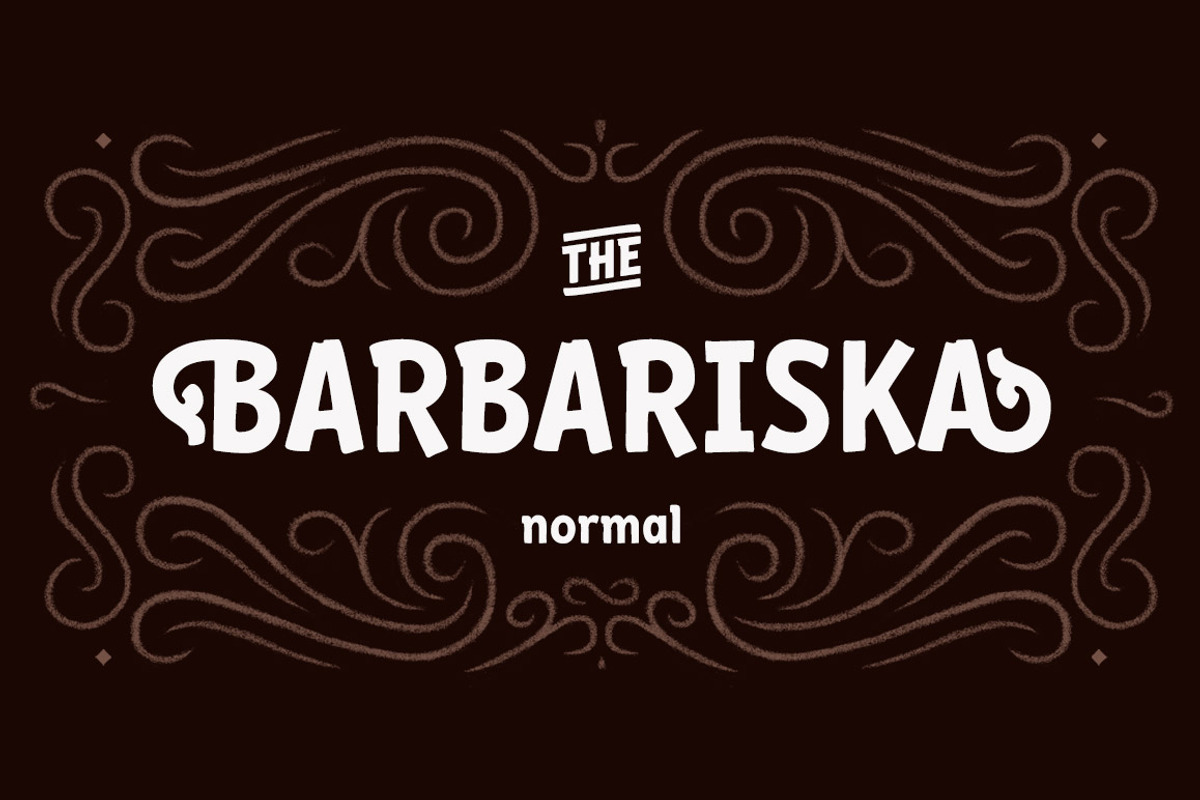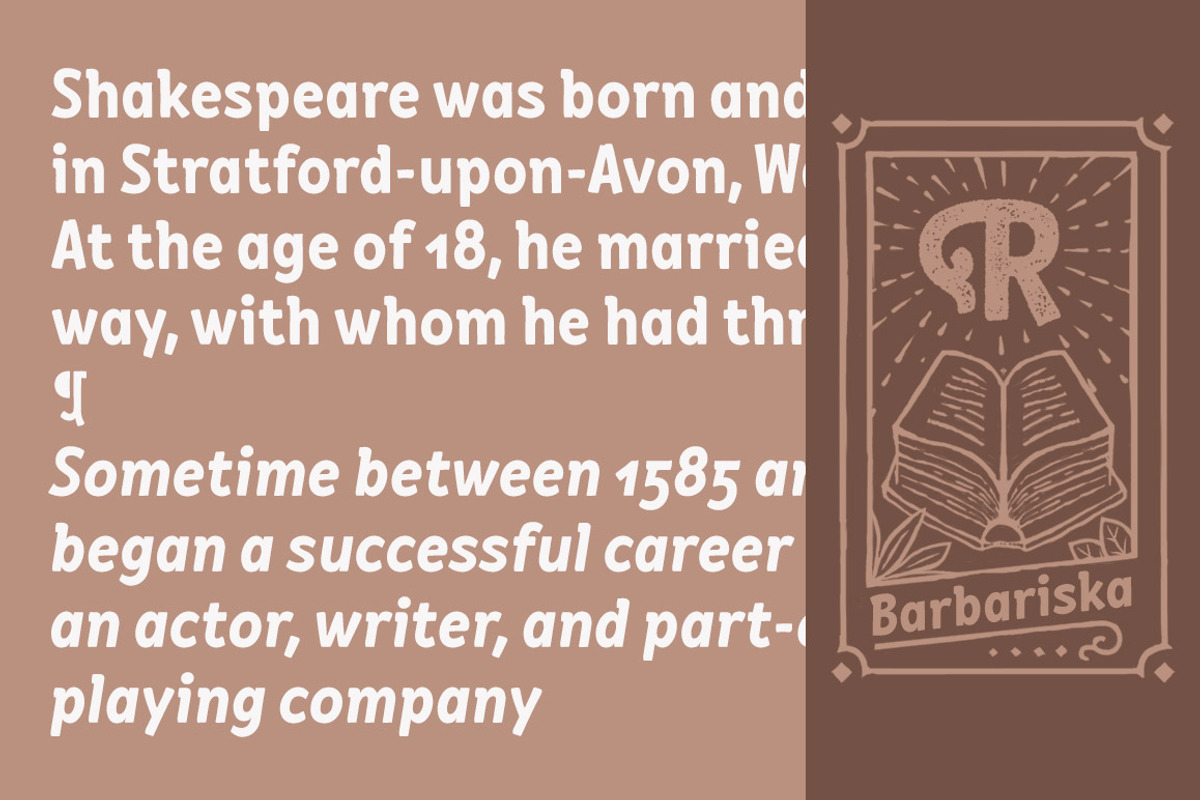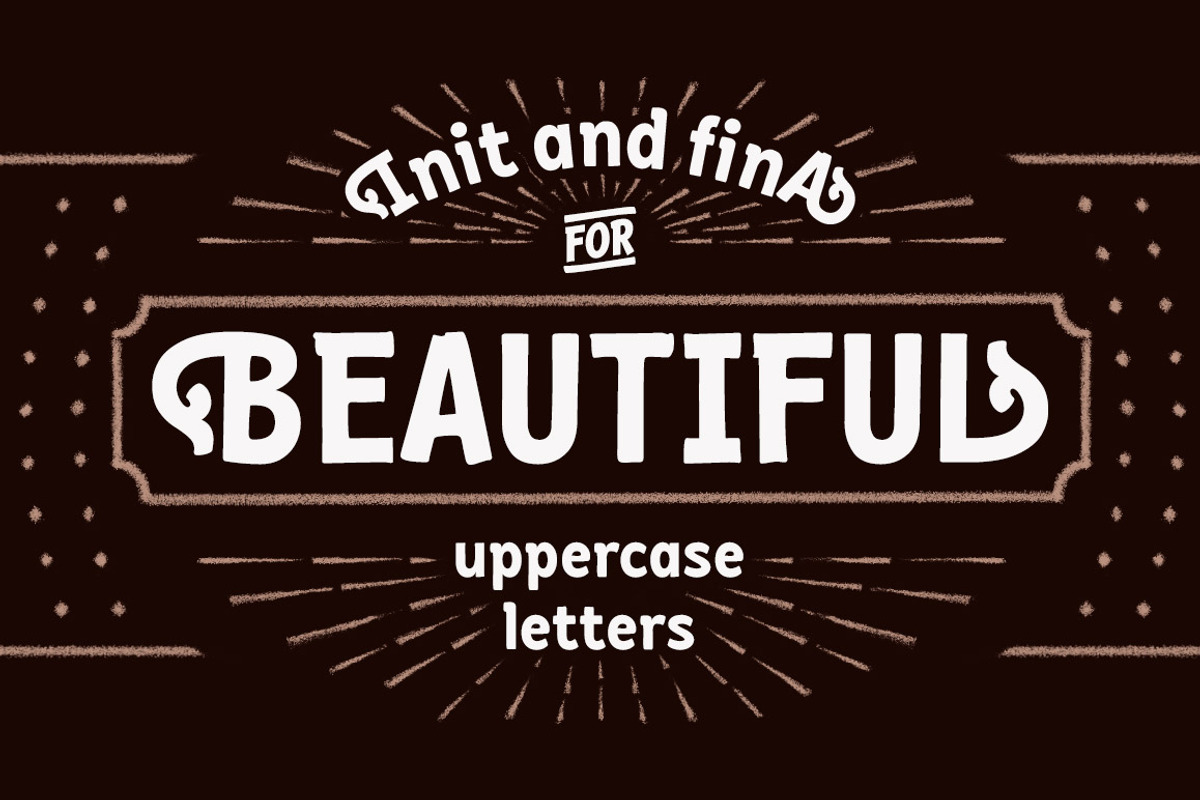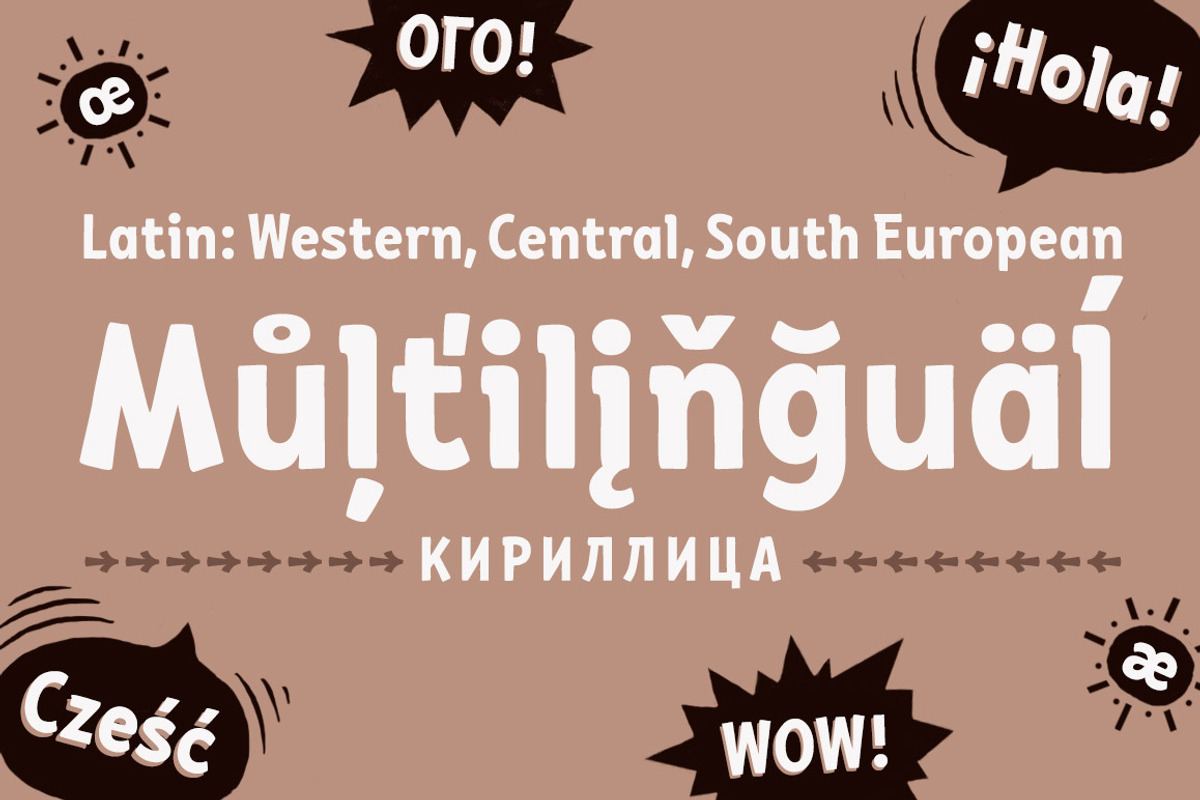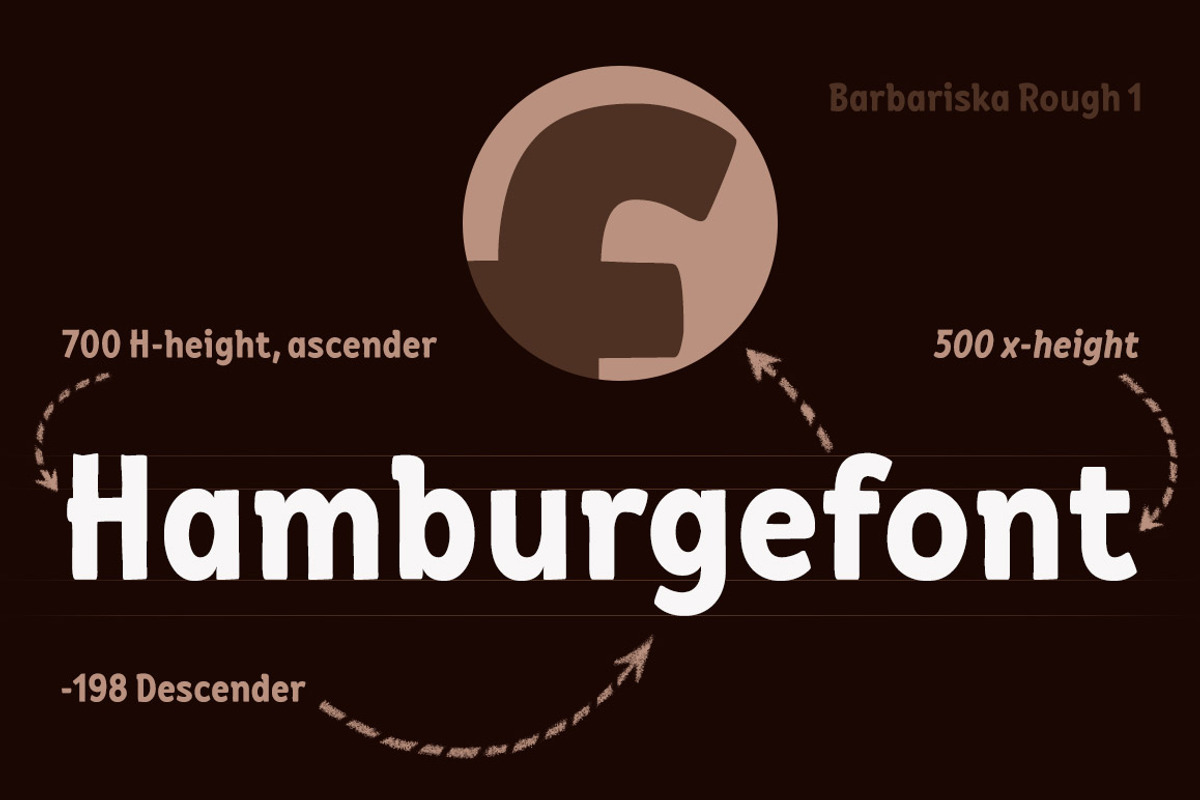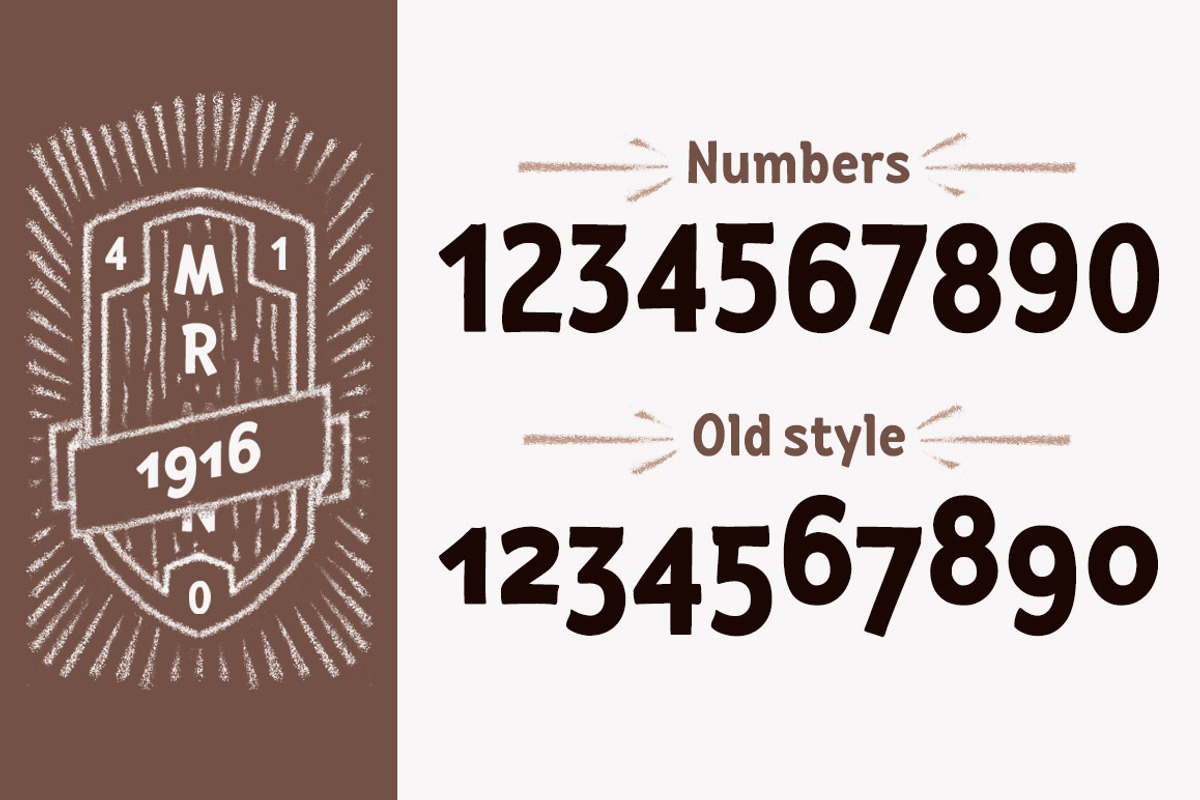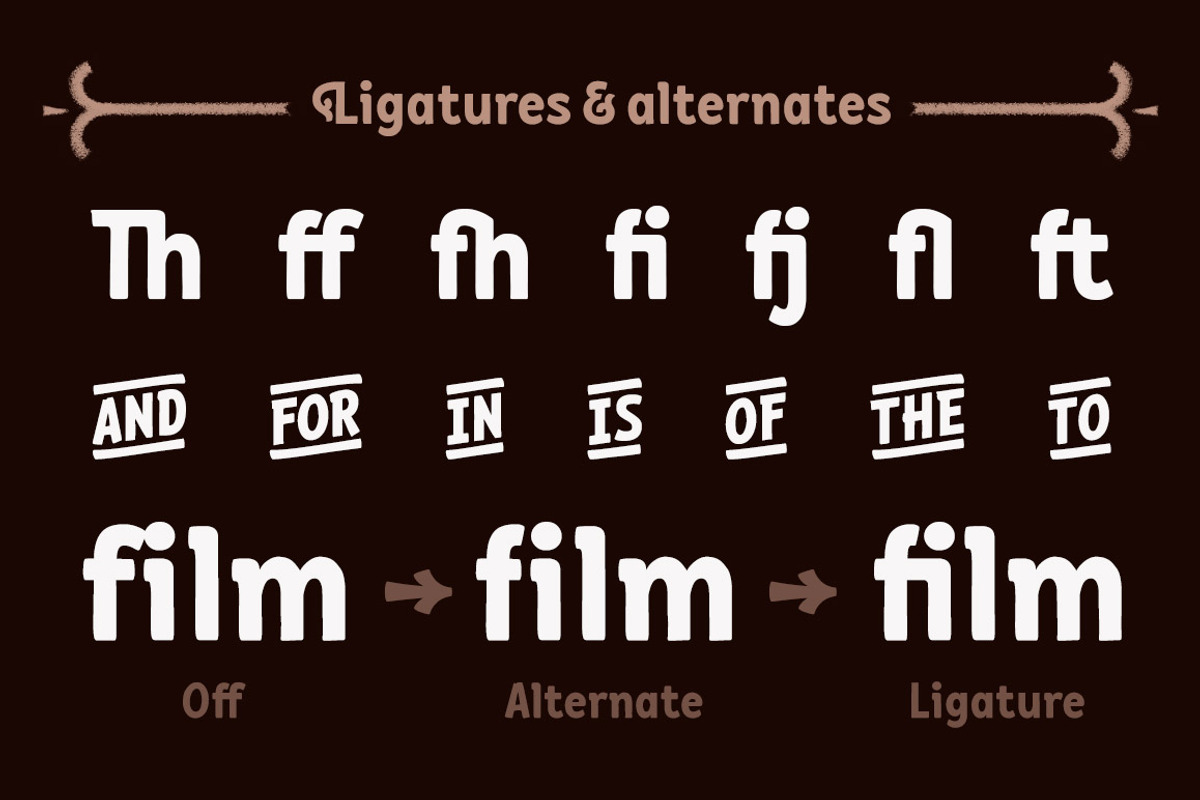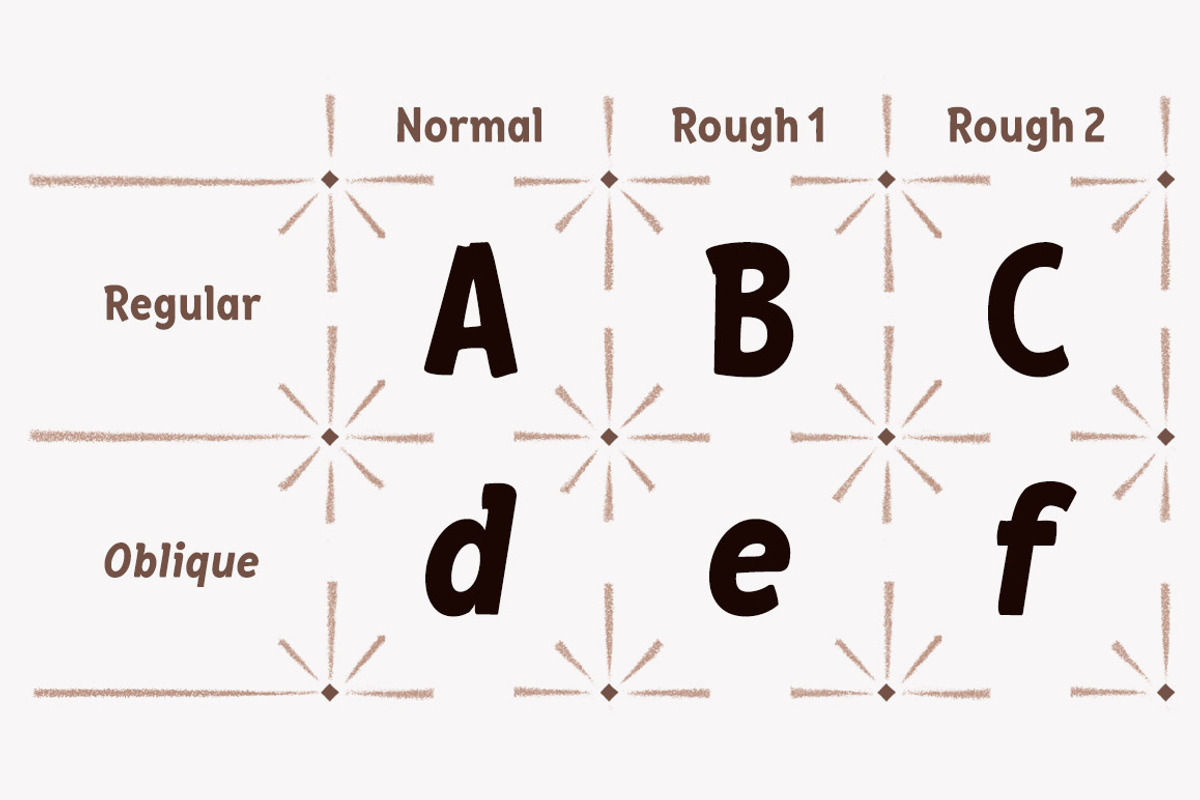
Barbariska Regular & Oblique
Barbariska Regular & Oblique by Russian Fonts is a font selected for branding, posters, packaging, typography.
- Package design for food or cosmetic products.
- OpenType features Ligatures Contextual alternates Old style numbers Fina and init for capitals letters.
Why Barbariska Regular & Oblique is worth a look
Barbariska Regular & Oblique by Russian Fonts fits naturally into Branding, posters, packaging, typography.